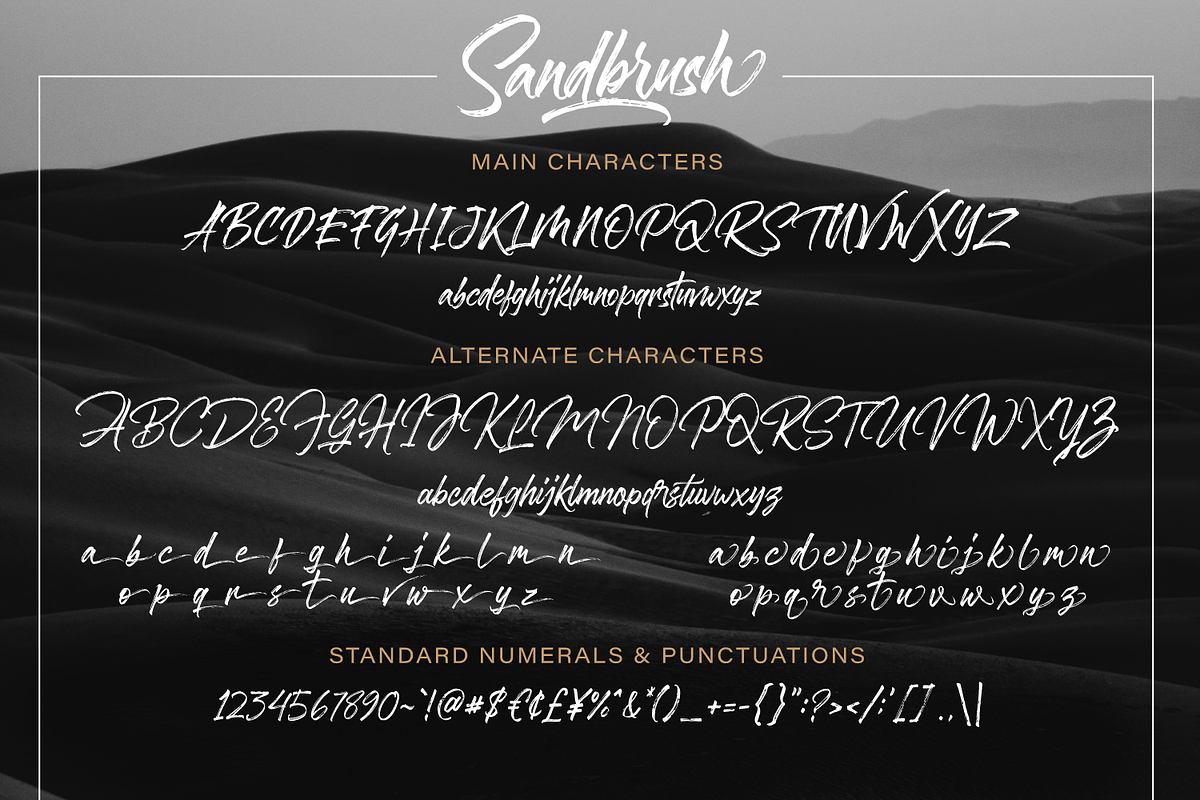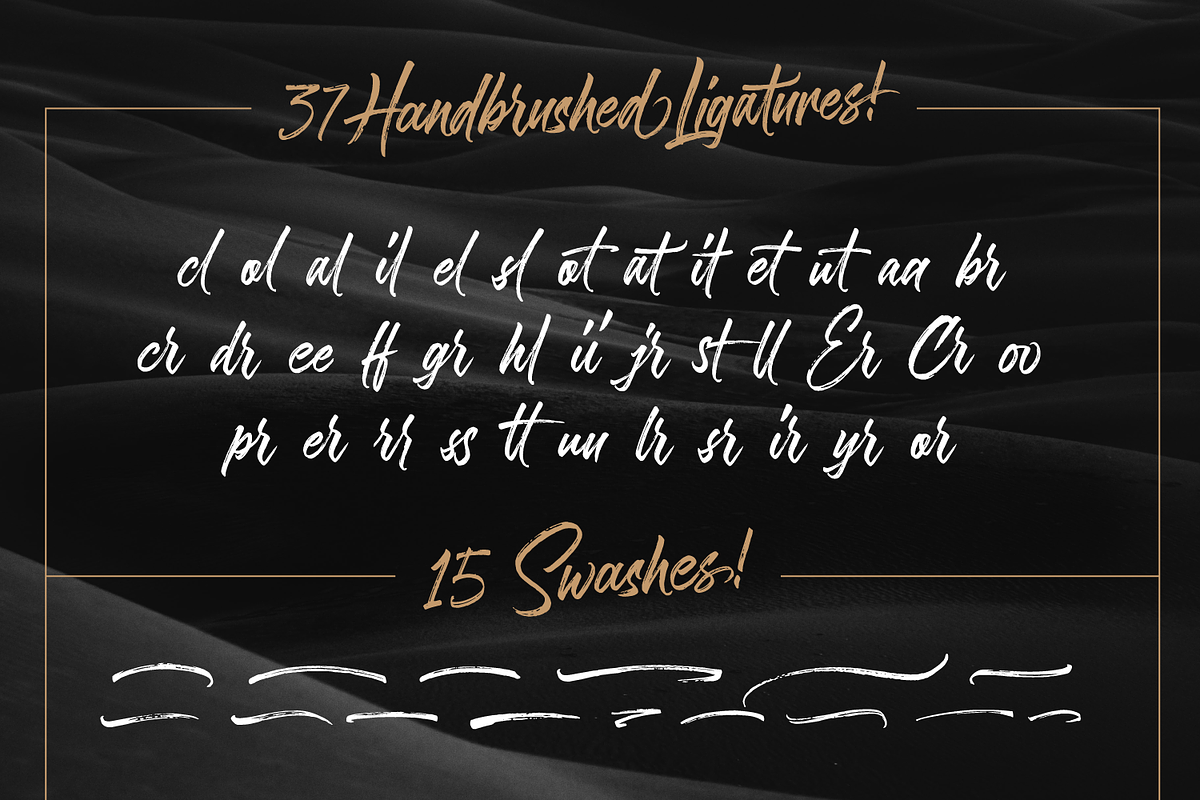
Sandbrush
Sandbrush is a natural hand brushed font. Work great for any design needs : logo, branding, modern advertising design, logos, poster quote, book / cover Title, editorial design, website / blog, card, custom mug, pillow, t-shirts, and any hand-lettered needs.
- Sandbrush Pro (.ttf + .otf) comes with upper and lowercase Standard Characters, Punctuation, Numerals. And other Glyphs variation of the OpenType features such as Standard Ligature, Stylistic Alternate, Stylistic Set and Swahes.
- Sandbrush 01 (.ttf + .otf) - main characters.
- Sandbrush 02 (.ttf + .otf) - alternate characters with a completely new set of upper & lowercase characters.
- Sandbrush 03 (.ttf + .otf) - comes with 2 sets end swash lowercases.
- Sandbrush ligature and swash (.ttf + .otf) comes with 37 ligatures and 15 swashes (A to O).
- Includes a range of multilingual characters.